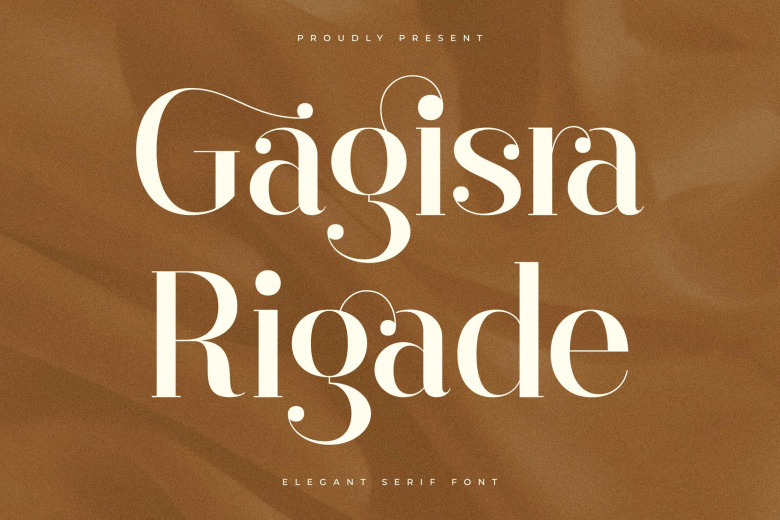
Gagisra Rigade Font
There are Classic Serif Font with its style and modern look, Gagisra Rigade ; this typeface is elegant & a luxury logo, book or movie title design, fashion brand, magazine, clothes, lettering, quotes, and many more was formatted.
Gagisra Rigade Serif Font